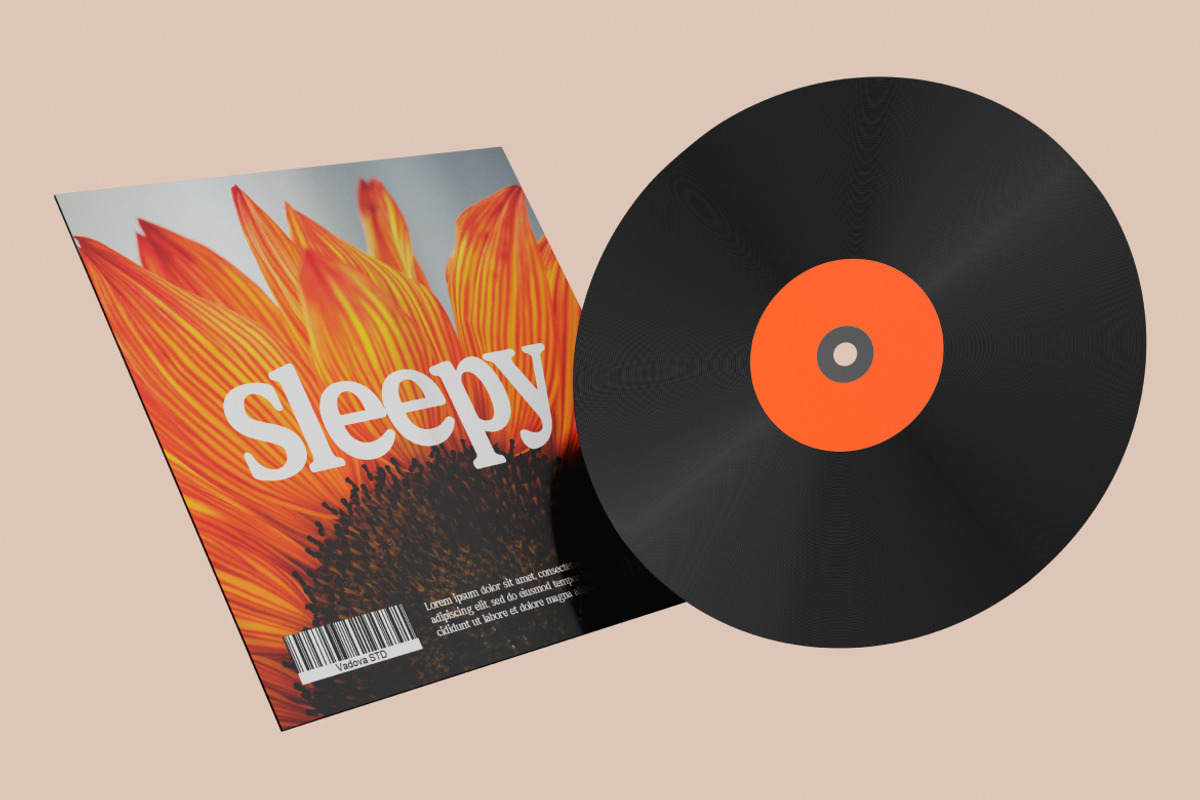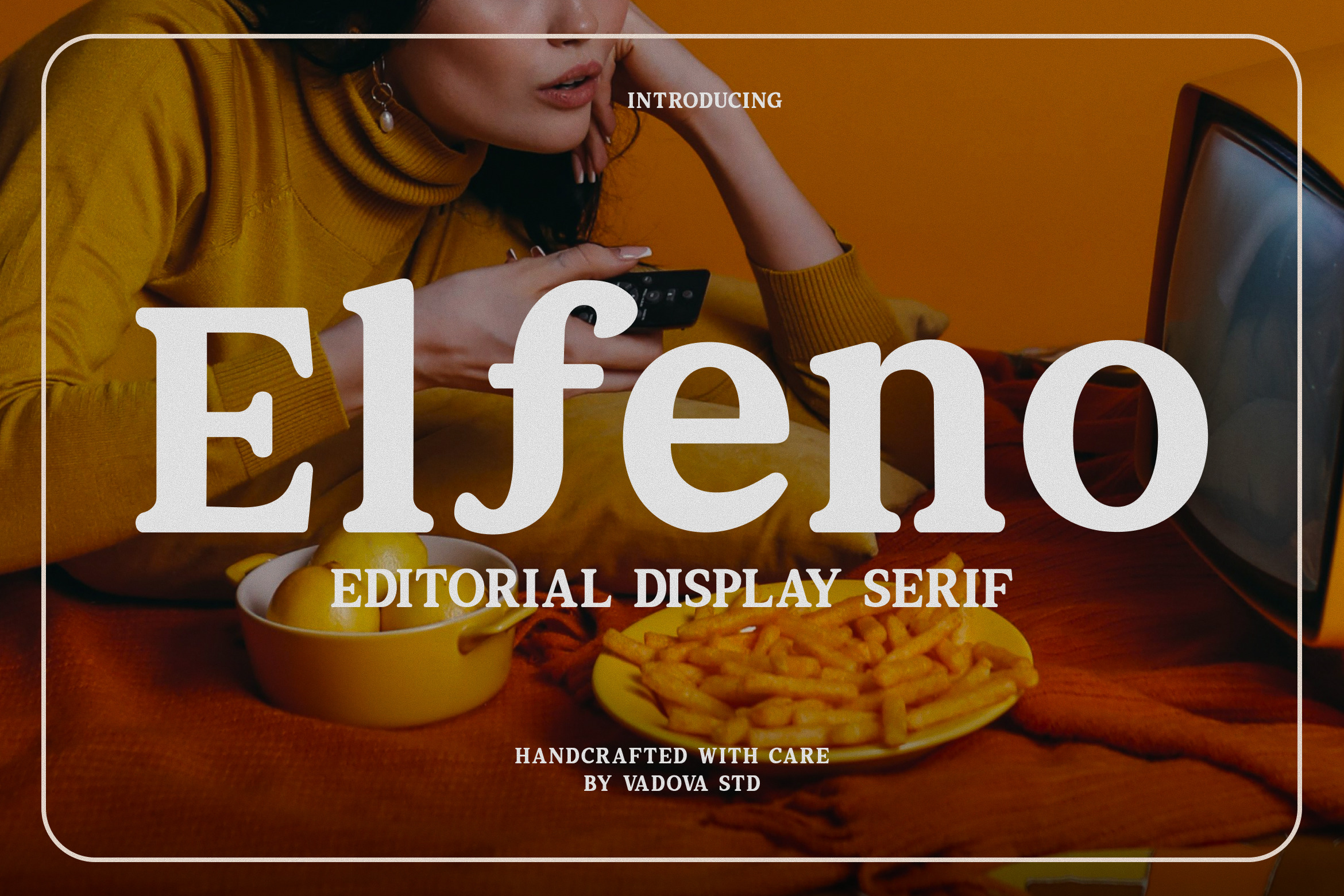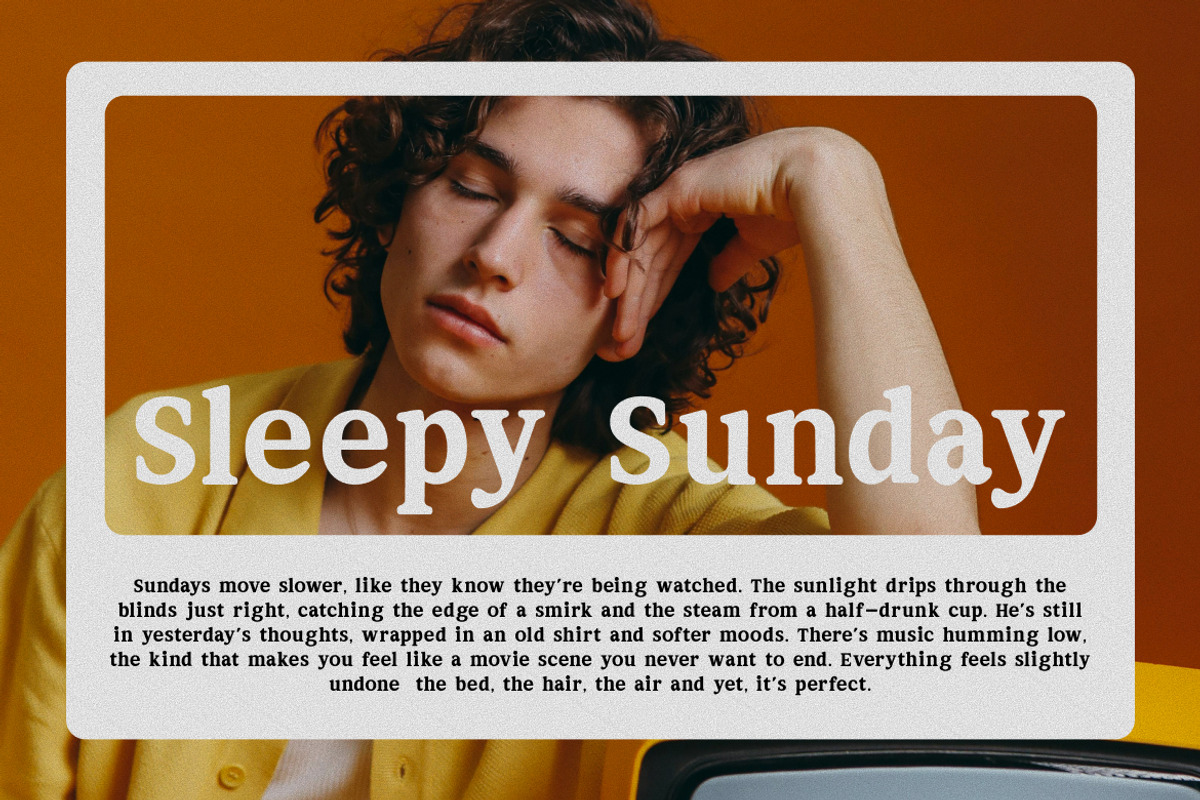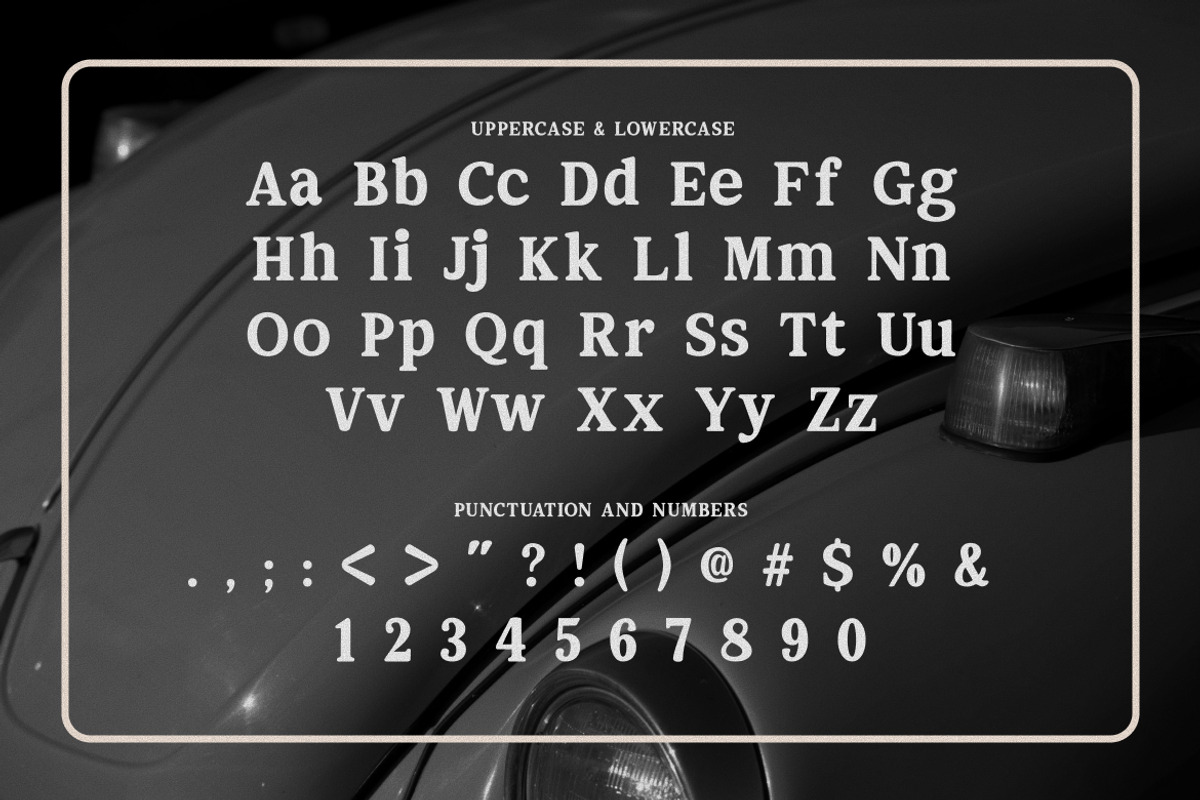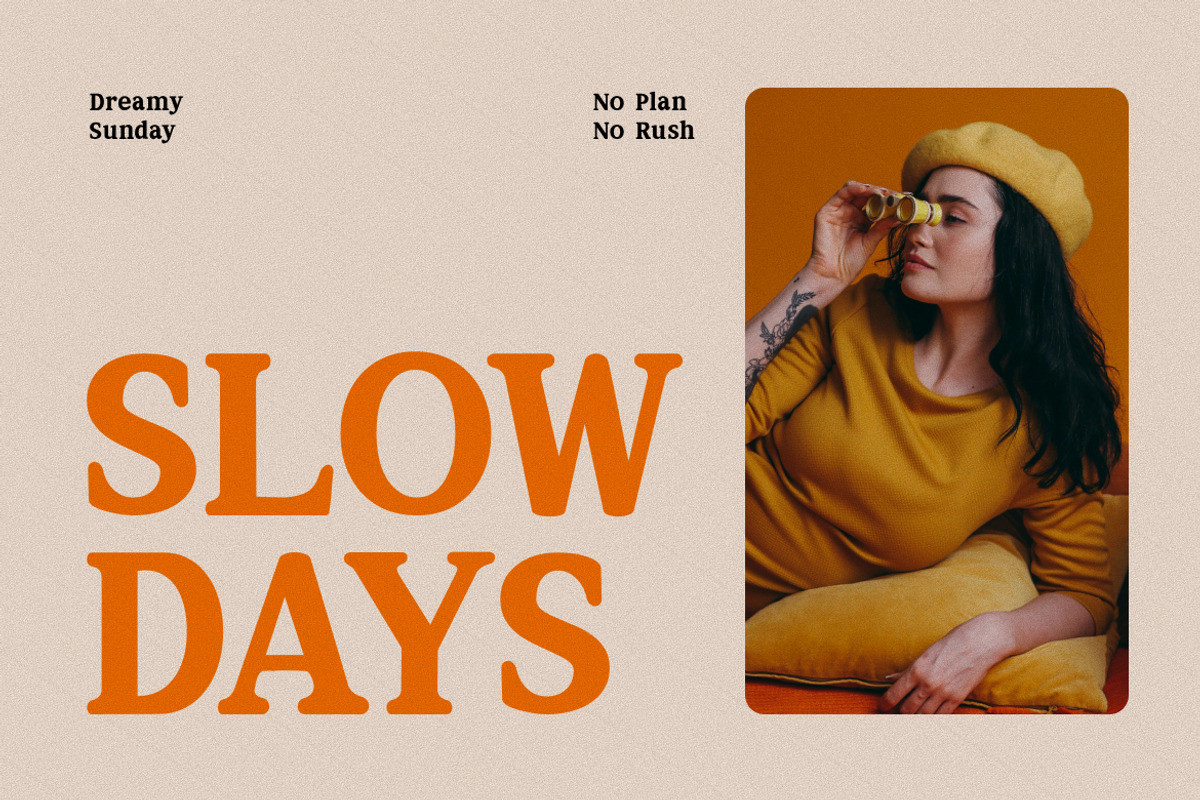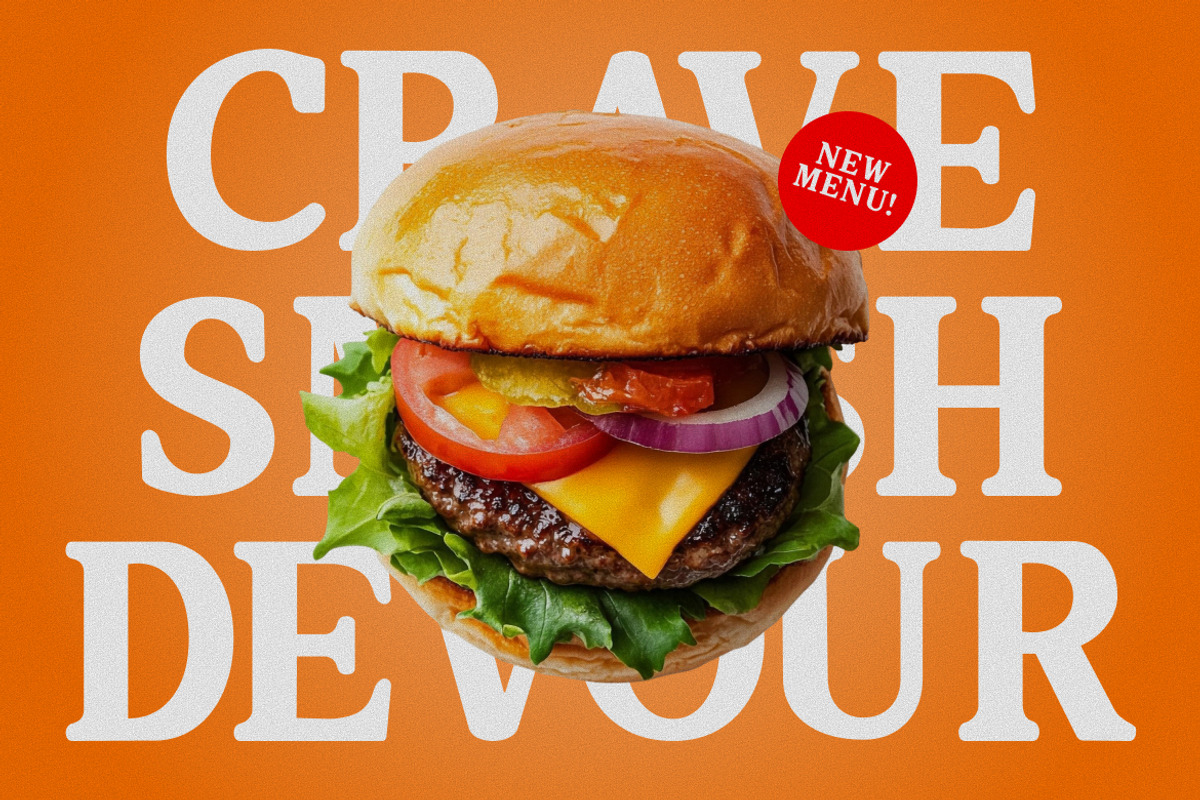
Elfeno Editorial Display Serif Font
Elfeno is a refined editorial display serif typeface that blends classic elegance with modern character. Designed for standout visual impact, this serif features crisp, high‑contrast strokes and well‑balanced proportions, making it ideal for premium editorial layouts, fashion titles, book covers, posters, and high‑end branding. The typeface includes full uppercase and lowercase alphabets, numerals, punctuation, and multilingual support to accommodate a variety of design needs.
Elfeno is especially relevant for designers, agencies, and creators who want a refined typeface that conveys professionalism and elegance. Its dynamic character makes it perfect for editorial spreads, fashion and lifestyle branding, posters, book covers, website headers, and premium packaging anywhere you need classic style with a modern touch.
- High-contrast stroke design for striking visual presence
- Balanced letter proportions for refined readability
- Subtle vintage influence with a modern execution
- Graceful serif shapes with editorial sophistication
- Complete uppercase & lowercase sets with punctuation
- Editorial layouts and magazine headlines
- Fashion and lifestyle branding assets
- Elegant book covers and title pages
- Promotional posters and art prints
- High-end packaging and label design
Elevate your visual storytelling with Elfeno that speaks with clarity, elegance, and timeless style